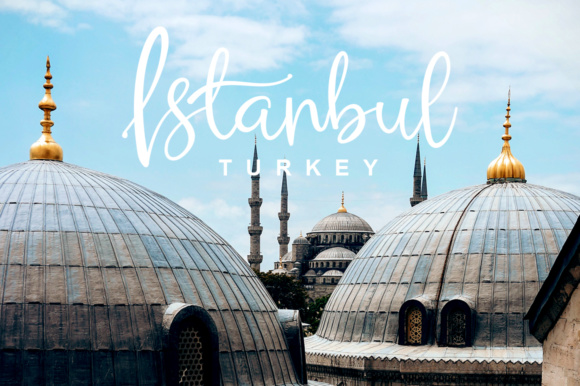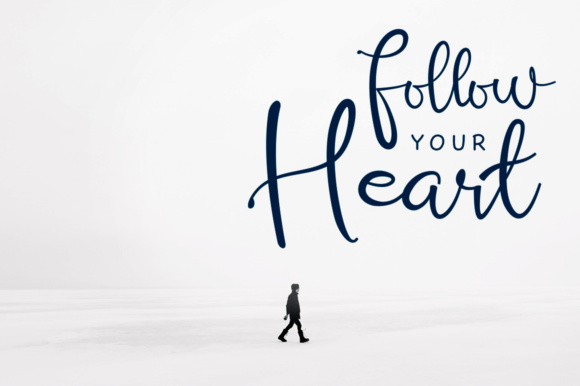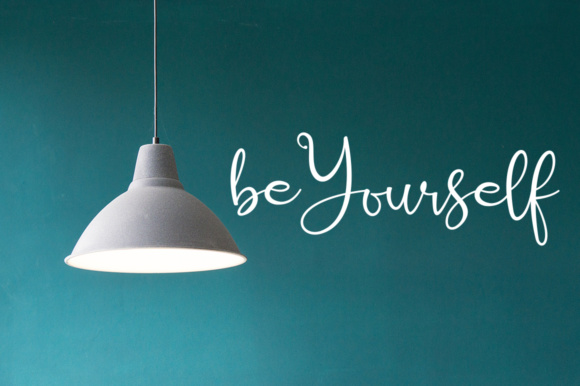
Introduction to Russhell Font
The Russhell is a sweet lettering script.
It has a handwritten style which makes it look cute, elegant and stylish .
Russhell Font offers exceptional quality and versatility, making it a valuable addition to your design toolkit. Whether you’re creating for personal projects or commercial use, Russhell Font delivers professional results.